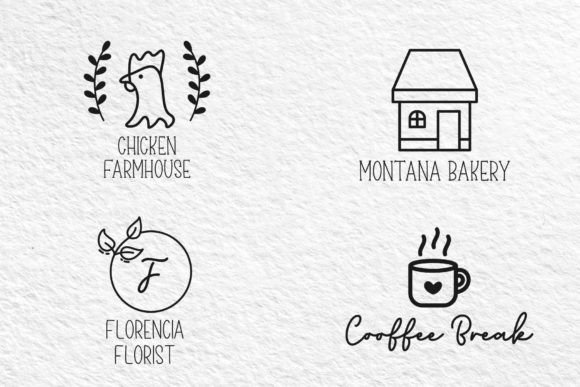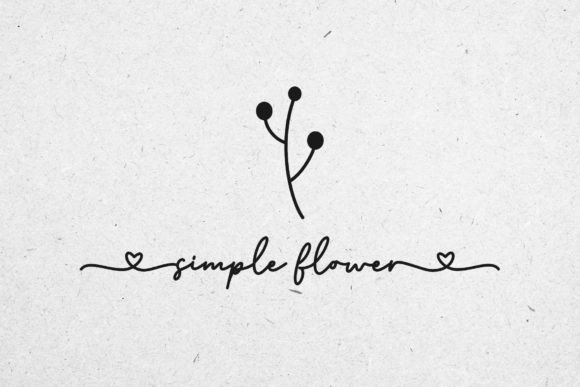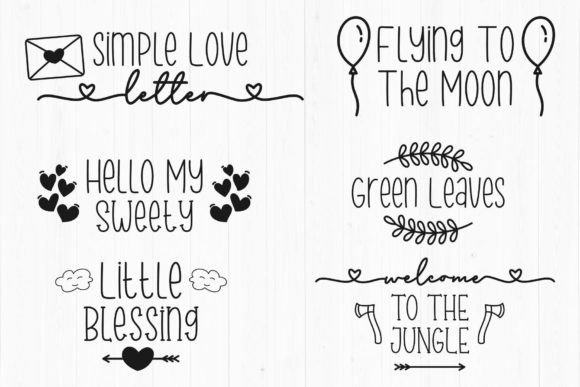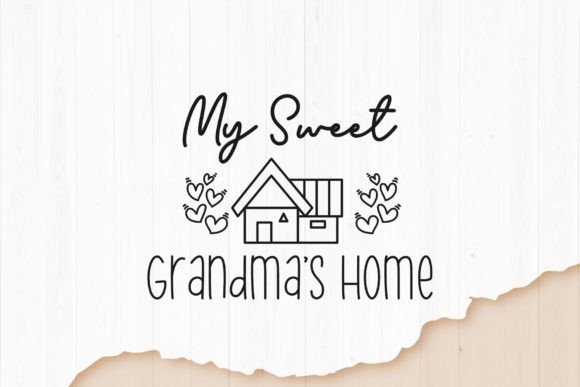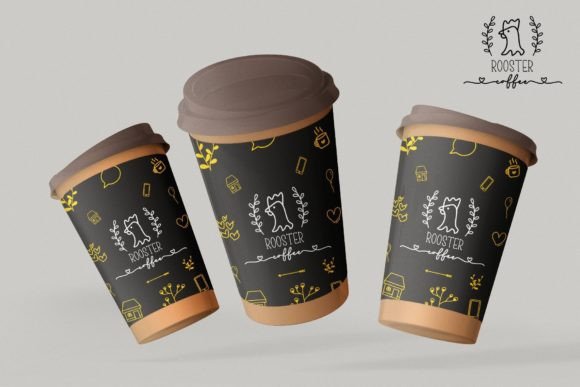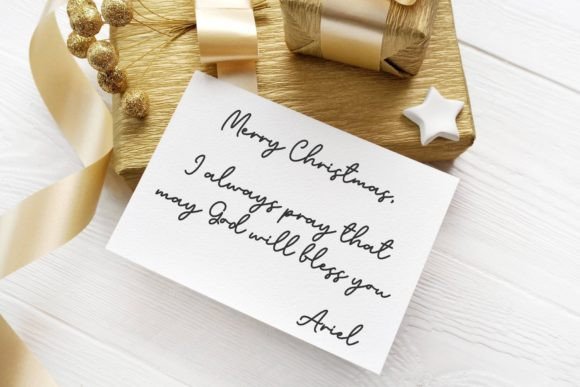
The Perfect Blend of Creativity and Style: Garden House Font
Have you ever found yourself staring at a blank page, searching for the perfect words to bring your idea to life? That’s exactly where I was, until I stumbled upon the Garden House Font trio. It was love at first sight – the elegant sans, the sophisticated serif, and the whimsical signature font all working together in perfect harmony. I knew right then and there that I had found my new go-to font combination.
Designed to complement each other, Garden House Font is the ultimate trio for any creative project. Whether you’re designing a logo, crafting a book cover, or creating a social media post, this font trio will add a touch of authenticity to your work. For designers, it’s a valuable asset that can elevate even the most mundane ideas into stunning pieces of art.
Garden House Font Key Features
- Size and Resolution: The font is available in 1 style with 6 weights (Hairline, Light, Regular, Medium, Bold, Black) and 1 italic style. It has a resolution of 300 DPI (Dots Per Inch) for high-quality printing and digital use.
- Unique Characteristics: The Garden House Font features a natural and elegant design, perfect for creating a sense of serenity and relaxation. Its unique characteristics include flowing lines, subtle curves, and a mix of modern and classic elements.
- Language Support: The font supports a wide range of languages, including Latin-based languages, Cyrillic, and Greek. It also includes support for various diacritical marks and special characters.
Garden House Font Review
I recently had the chance to work with the Garden House Font, and I’m excited to share my honest review with you.
- The Garden House Font is incredibly versatile, suitable for a wide range of projects from elegant invitations to rustic home decor signage.
- The font’s natural, handwritten feel is perfect for adding a touch of whimsy and personality to your designs.
- The font’s weight and spacing are well-balanced, making it easy to read and understand.
- The Garden House Font may not be the best choice for projects that require a highly formal or corporate tone.
- The font’s connection to nature and the outdoors may not be suitable for all audiences or projects.
- The font’s limited character set may cause issues for longer texts or complex layouts.
Overall, I’m impressed with the Garden House Font’s unique character and versatility. While it may not be the best choice for every project, it’s a great option for those looking to add a touch of personality and whimsy to their designs.
The Garden House Font is perfect for:
- Gardening and outdoor-themed designs
- Home decor and interior design projects
For optimal results, use the Garden House Font in conjunction with earthy colors and natural textures.